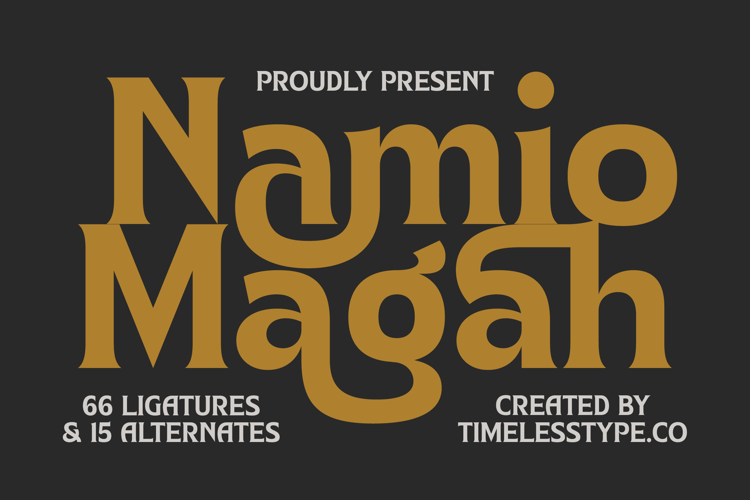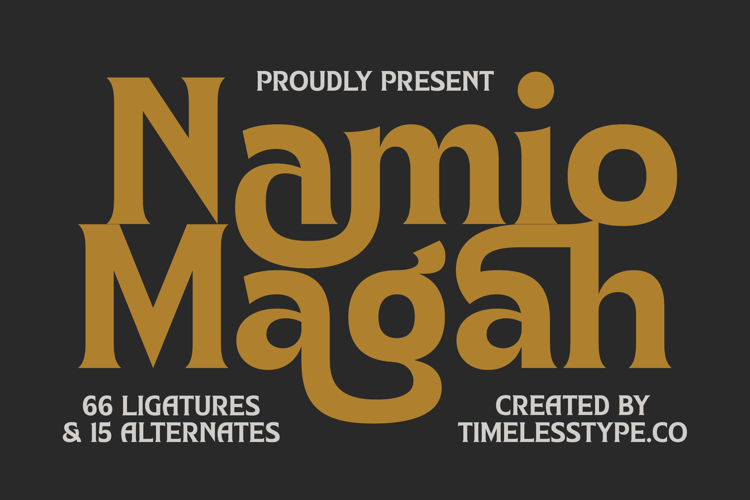
Namio Magah - Modern Display Serif
Elevate your designs with unparalleled sophistication and visual impact. Introducing Namio Magah - Modern Display Serif, a typeface crafted to exude both contemporary flair and timeless elegance. Its distinctive characters, marked by a captivating high-contrast interplay of thick and thin strokes, immediately command attention. This font's unique blend of classic serif structure with modern display sensibilities is an extraordinary choice for projects demanding gravitas and a fresh perspective.
Unlock boundless creative possibilities with extensive typographic features. Namio Magah - Modern Display Serif offers an impressive suite of 66 ligatures and 15 alternates, empowering designers to craft unique and fluid textual compositions. These embellishments ensure your text flows beautifully and stands out with custom artistry. With its extensive multilingual support, Namio Magah - Modern Display Serif adapts seamlessly across global markets, making it incredibly versatile for international projects.
Perfectly suited for an array of prestigious applications. Namio Magah - Modern Display Serif shines brightest in contexts requiring exclusivity and refinement. It is ideally perfect for luxury branding, premium packaging, high-end editorial design, fashion ventures, and impactful headlines. Whether crafting a distinctive logo or a sophisticated magazine spread, this font guarantees a memorable and professional aesthetic that resonates with discerning audiences.
Make an unforgettable statement with every character. Embrace the artistic potential of Namio Magah - Modern Display Serif to infuse your projects with grandeur and modern finesse. Its inherent boldness and elegant curves ensure your message is not just read, but profoundly felt. Choose this typeface to distinguish your brand, conveying curated quality and design excellence, and creating a powerful, lasting impression in any visual medium.